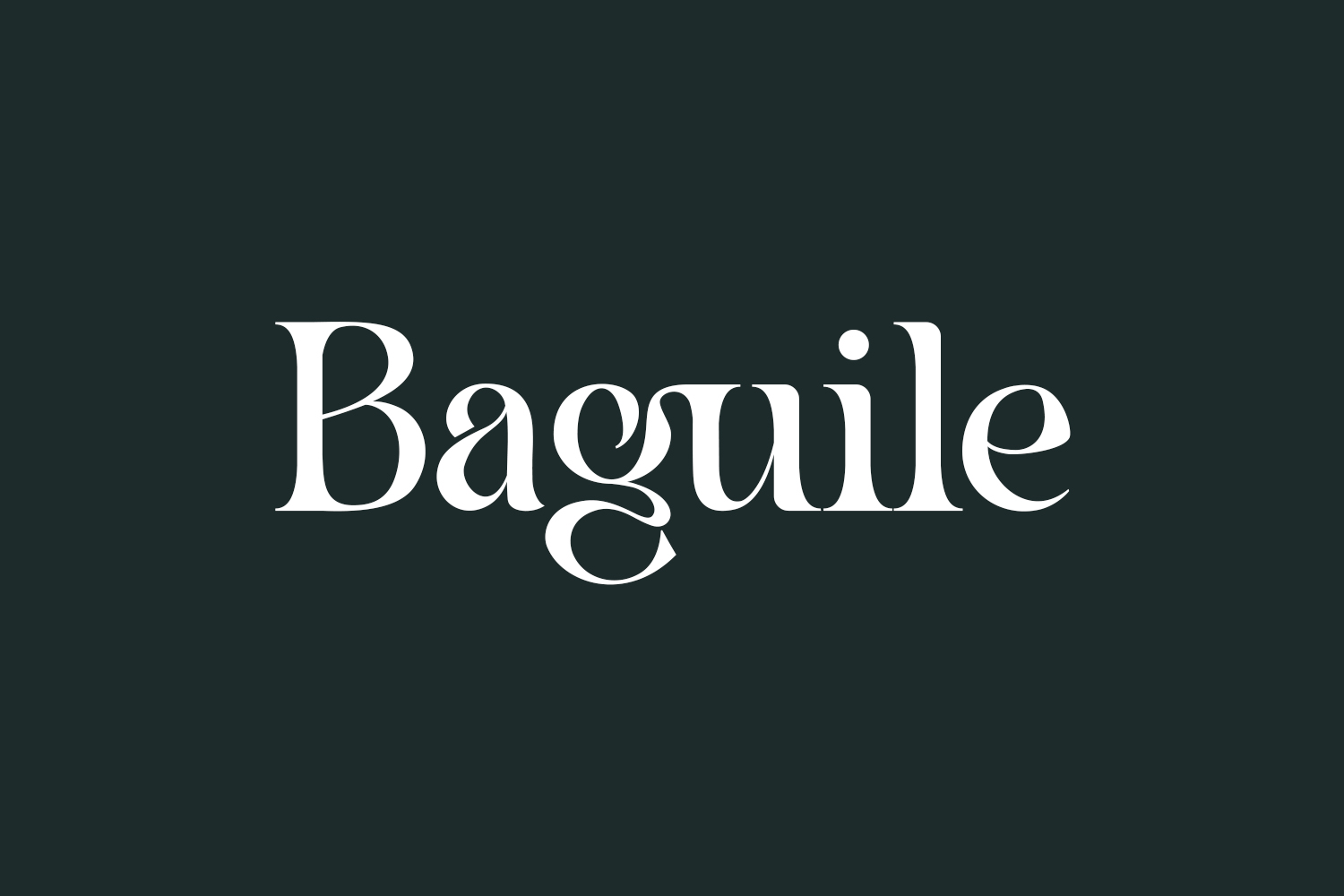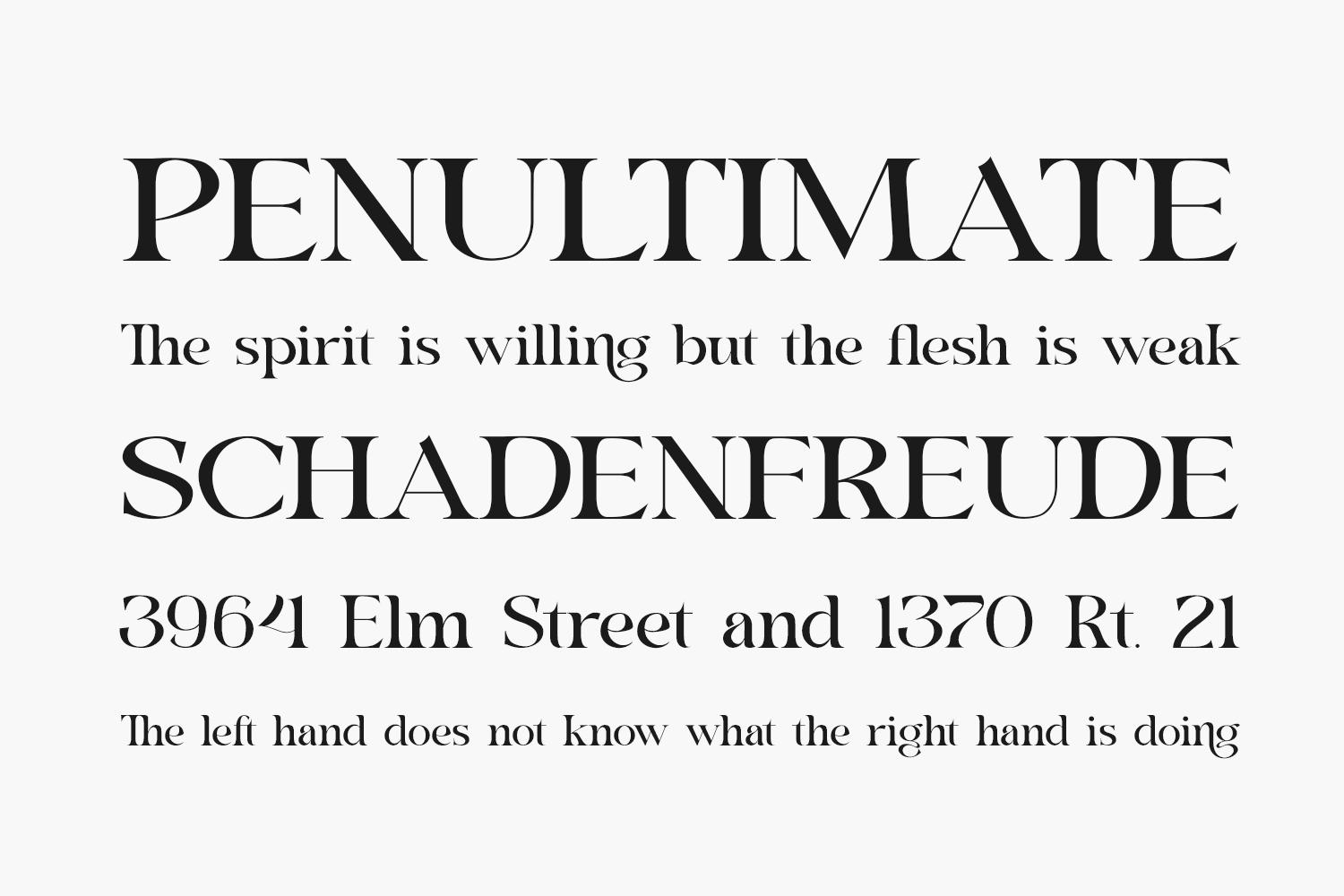
Baguile
Introducing Baguile Free Font a minimalist serif font with elegant craftsmanship. This versatile font effortlessly complements a wide range of projects, allowing you to achieve a refined and understated aesthetic with maximum versatility. Baguile Free Font is free for personal use only. Please purchase the full version for commercial use.